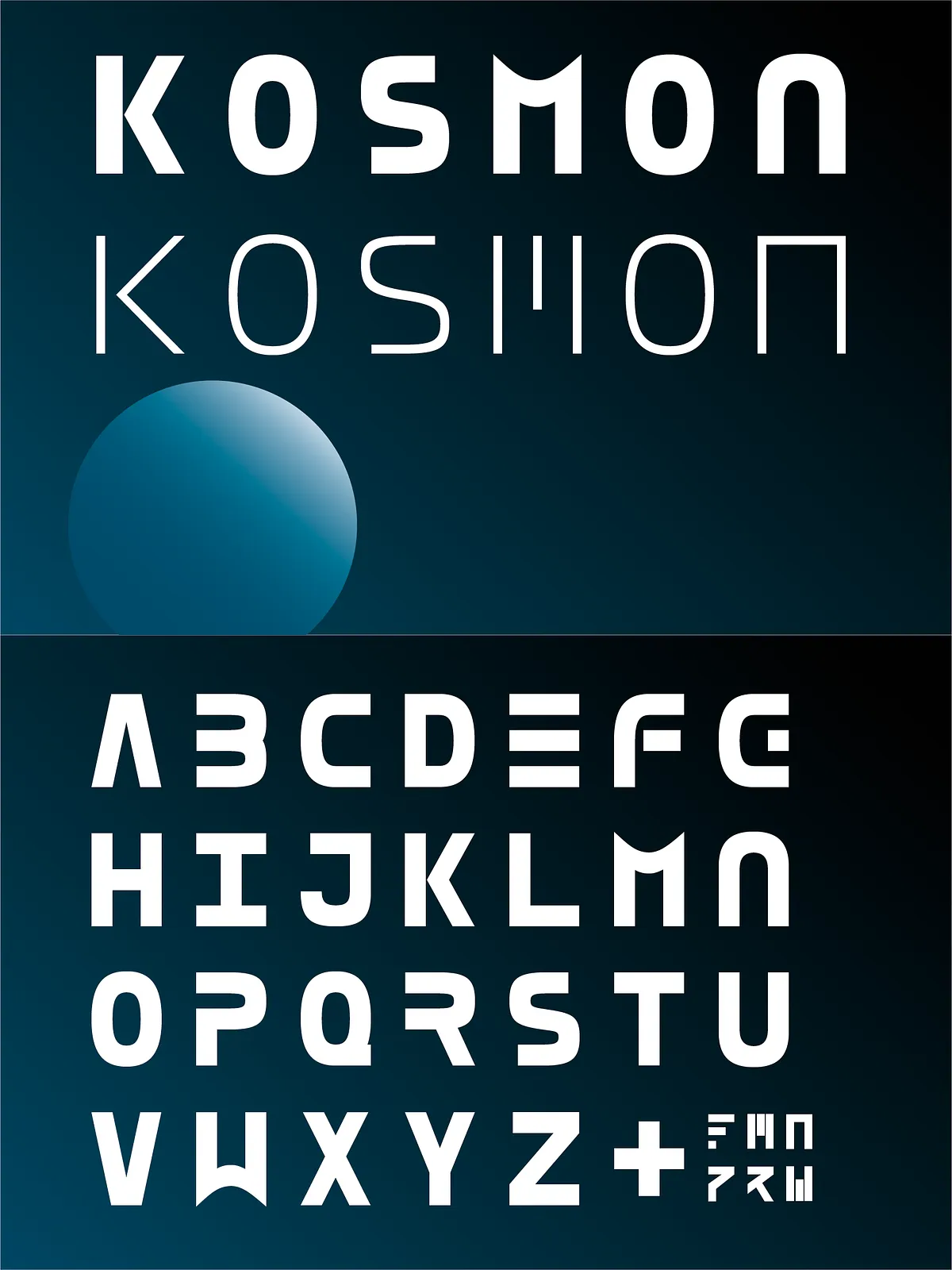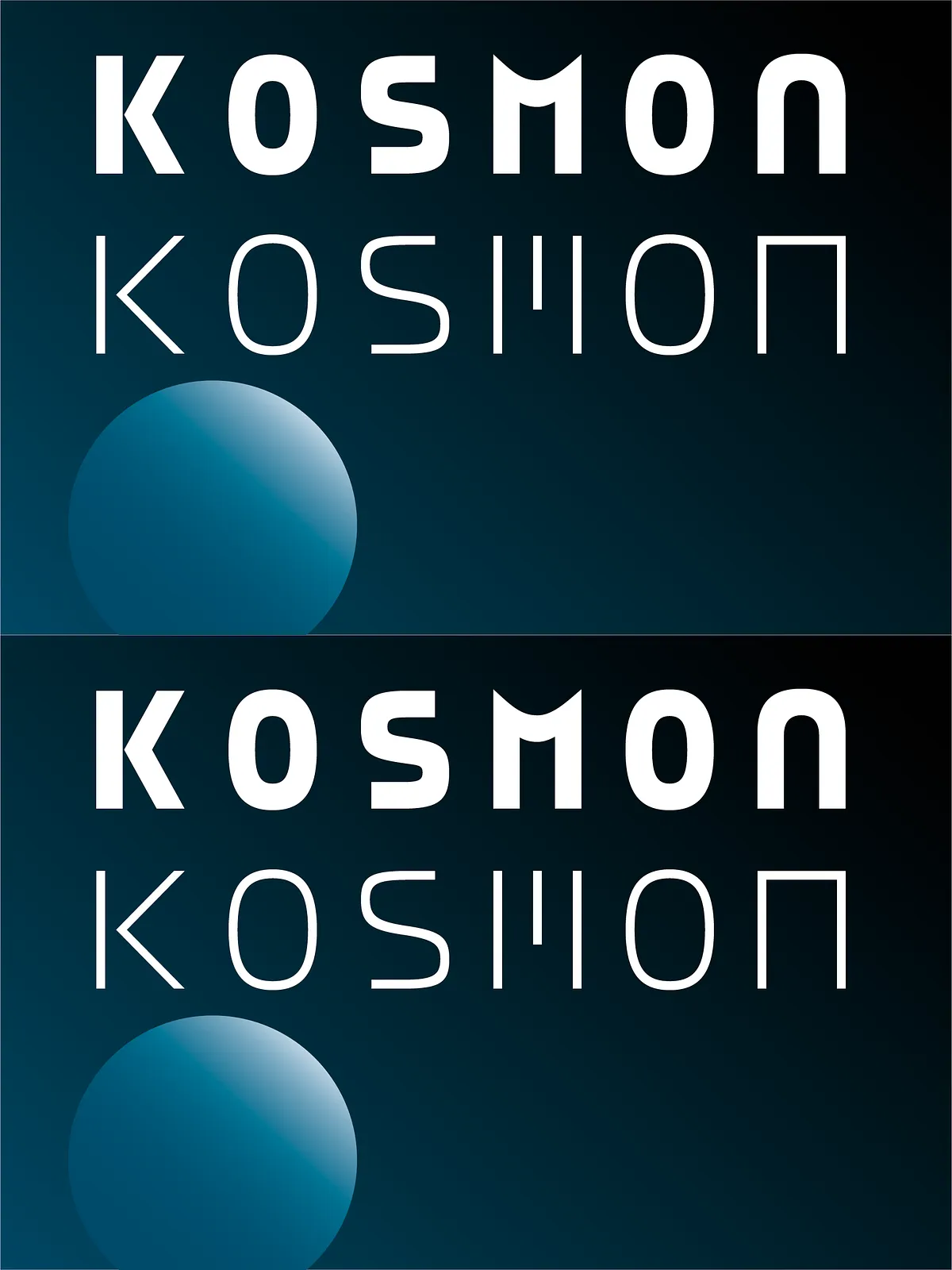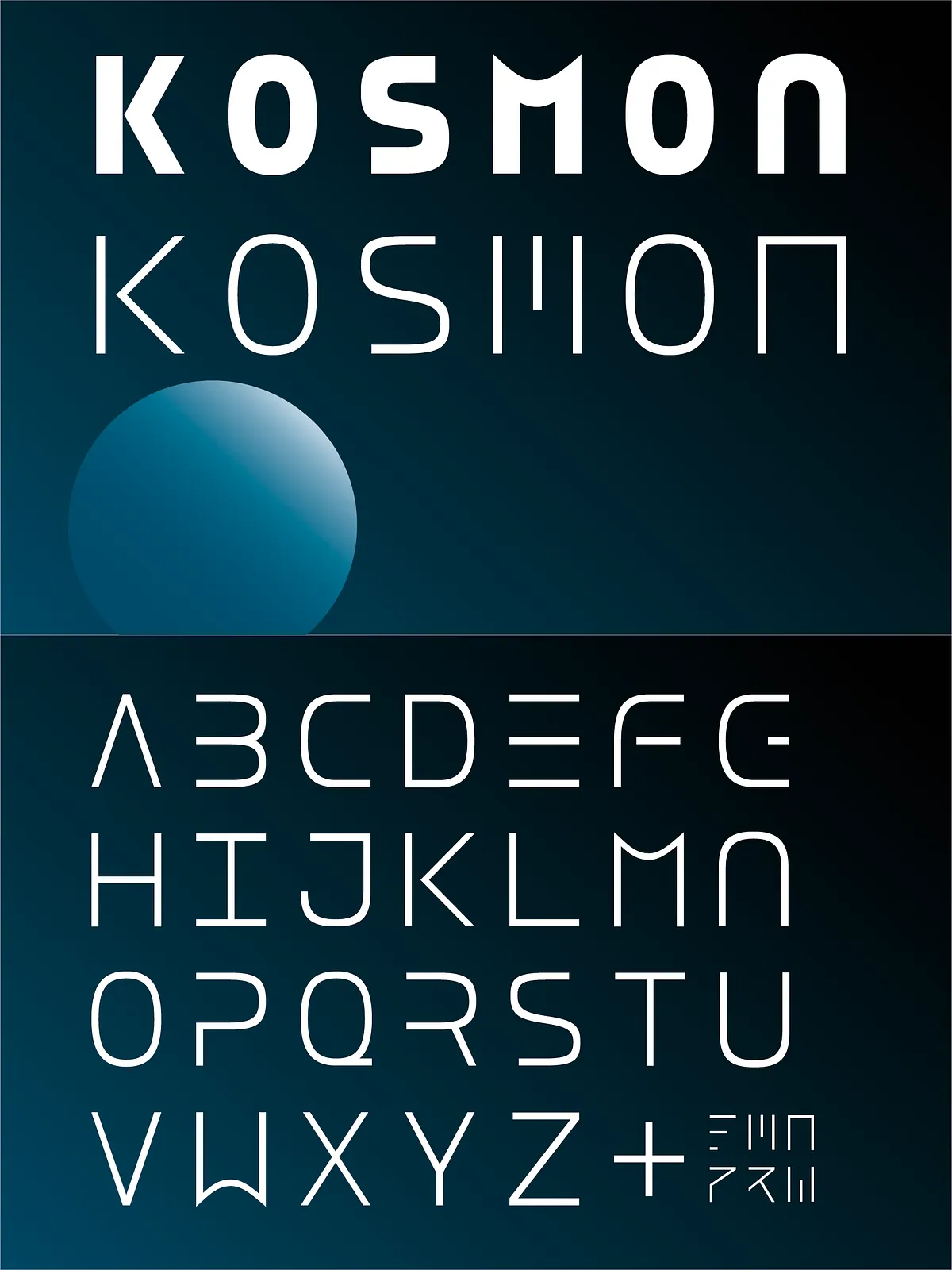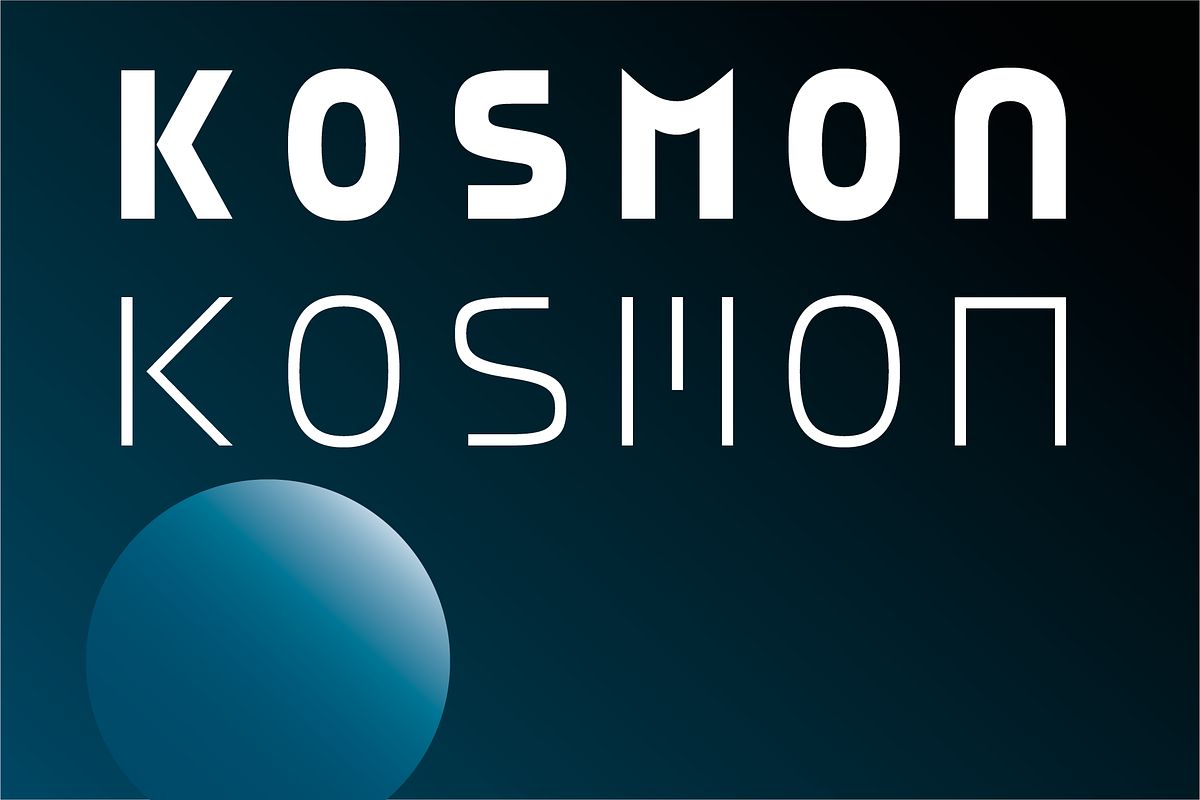
Step into the future of typography with Kosmon — a striking, pure monospace display font engineered to command attention. Designed exclusively for headlines, titles, and high-impact visual statements, Kosmon distills modern design down to its essence: clean lines, geometric precision, and bold presence.
Every character in Kosmon is crafted with intention. The monospaced structure ensures perfect alignment and rhythm, making it ideal for creating dynamic layouts that demand focus — whether for digital displays, poster designs, book covers, or branding identities. Its minimalist character set is not a limitation — it’s a deliberate choice to maximize impact where it matters most: the first impression.
Unlock Creative Power with 6 Stylish Alternates
What truly sets Kosmon apart is StyleSet1 — a hidden layer of typographic creativity. Access 6 unique alternate letterforms directly within your design software, allowing you to inject personality, variety, and surprise into your titles without leaving the font family.
Why Alternate Letters Matter:
- Break visual monotony in long headlines or repetitive typographic sequences.
- Enhance brand identity with distinctive text treatments that differentiate your work.
- Improve readability and flow through subtle visual variation that guides the eye.
- Explore futuristic aesthetics with alternate glyphs that suggest digital transformation, AI, or space-age design.
Designed for Impact, Not Complexity
Kosmon is not a text font. It’s a headline engine. The reduced character set focuses on letters, numerals, and essential punctuation — nothing extra, nothing distracting. This intentional minimalism means every character is optimized for maximum visual performance under pressure: in large formats, on dark backgrounds, or within high-contrast compositions.
It thrives in environments where clarity and boldness are non-negotiable — from tech product launches and music festival branding to futuristic editorial layouts and immersive digital art.
Perfect Use Cases for Kosmon
High-Impact Branding & Identity
Create unforgettable logos, mark names, and taglines with a sense of digital futurism. Kosmon’s sharp geometry and monospaced precision give your brand a modern, tech-forward tone.
Poster & Event Design
Design posters for concerts, film releases, tech expos, or exhibitions with titles that stop the scroll — literally. Let Kosmon own the top third of your layout.
Digital Interfaces & UI Displays
Use Kosmon in dashboard titles, modal headers, or terminal-style UIs. The monospace layout ensures perfect alignment in data-heavy or timecode-inspired environments.
Web & Motion Graphics
Integrate Kosmon into animated titles, video intros, or motion typography. The clean, structured nature of the font ensures crisp rendering across all screen sizes and speeds.
Why Kosmon Works Where Other Fonts Fail
Most headline fonts try to do too much — they’re crowded with ligatures, stylistic sets, and multilingual support. Kosmon says no to noise. It’s focused, efficient, and powerful. It’s not for paragraphs — it’s for moments.
It’s the font for the designer who values purpose over excess, and wants every title to feel like a statement, not just text.
Bring Your Futuristic Vision to Life
Whether you’re launching a tech startup, creating an art installation, or designing a cyberpunk-inspired campaign, Kosmon is the typographic weapon of choice.
It doesn’t whisper. It announces.
Use Kosmon. Make it known.